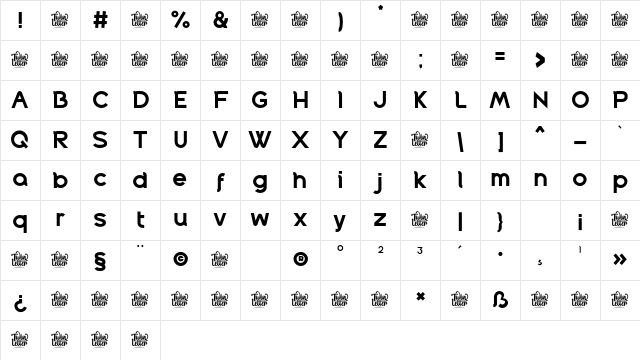
Puntodewa is a composed and adaptable typeface that performs quietly and consistently across a wide range of design contexts. Its bold stroke weight gives it real presence on the page.